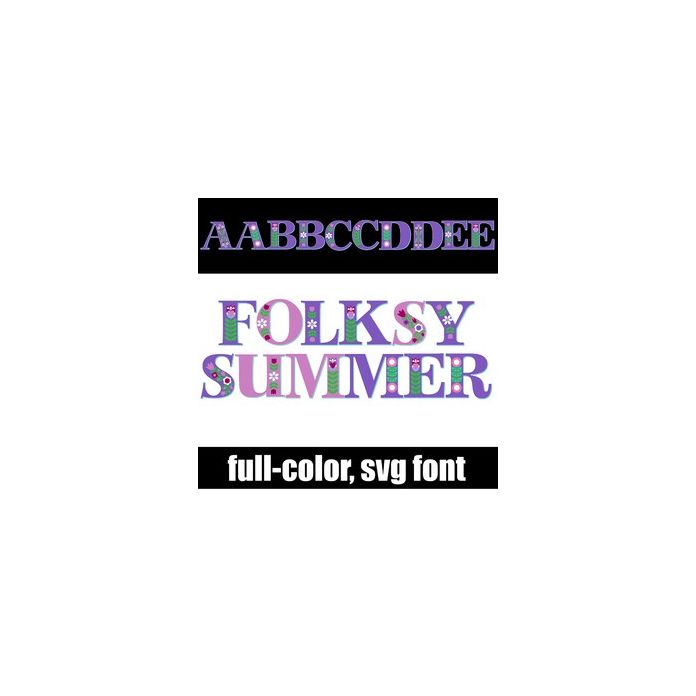
This full-color font features a standard serif font filled with a Scandinavian style floral spray on each letter. There is an alt case w/ additional colors you can access through your system or Silhouette's glyph map.